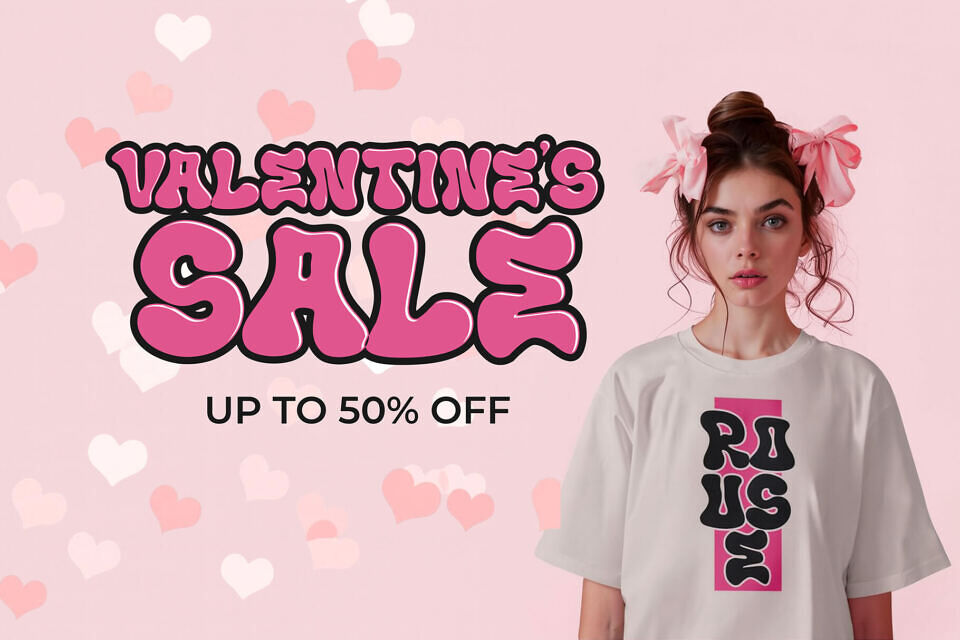
Love Glow Font
Inspired by vintage love posters, Valentine cards, and nostalgic pop aesthetics, this typeface brings a cheerful romantic mood that instantly connects with viewers. Its rounded curves, bubbly proportions, and glowing personality make it perfect for projects that need a sweet, friendly, and eye-catching typographic voice.
This typeface is carefully crafted to balance charm and readability. Each character flows smoothly with soft edges and bold strokes, creating a visual rhythm that feels both fun and inviting. The playful forms give off a hand-drawn feel while maintaining a polished, professional structure suitable for both digital and print designs. Love Glow works beautifully as a headline typeface, logo lettering, and decorative text where emotion and personality are essential.